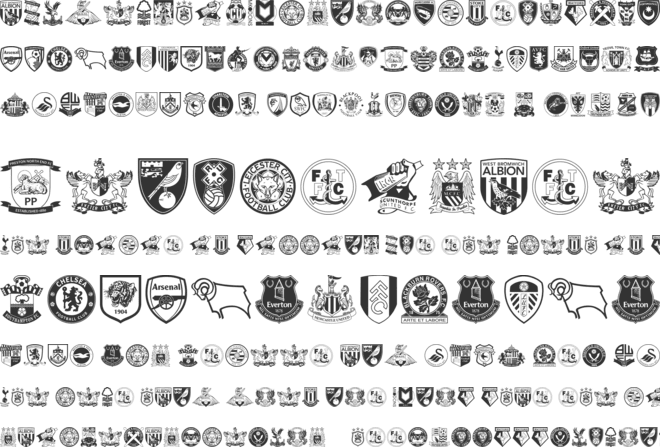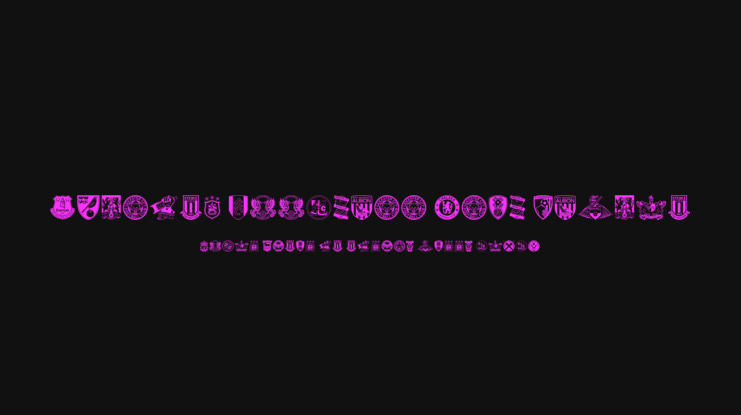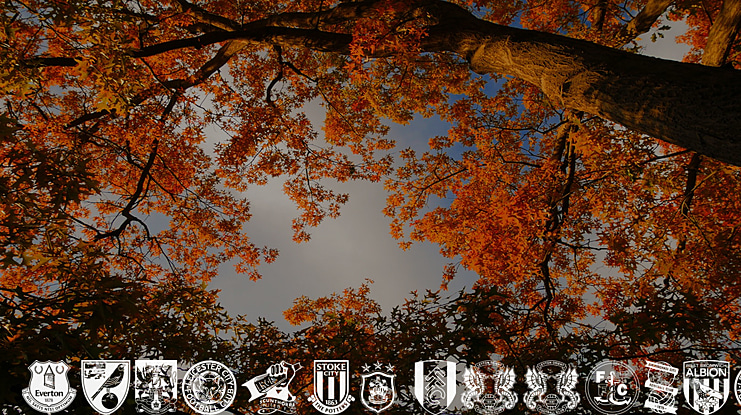
All 92 English Fooball Club badges(season 2015/16).
Premier League
Arsenal = A Aston Villa - V Bournemouth - B Chelsea - C Crystal Palace - c Everton - E Leicester City - l Liverpool - L Manchester City - m Manchester United - M Newcastle United - N Norwich City - n Southampton - S Stoke City - s Sunderland - 0 Swansea City -1 Tottenham Hotspur - T Watford - w West Bromwich Albion - a West Ham United - W
The Championship
Birmingham City - b Blackburn Rovers - R Bolton Wanderers - 2 Brentford - 3 Brighton & Hove Albion - 4 Bristol City - 5 Burnley - 6 Cardiff City - 7 Charlton Athletic - 8 Derby County - D Fulham - F Huddersfield Town - h Hull City - H Ipswich Town - I Leeds United - U Middlesbrough - 9 MK Dons - K Nottingham Forest - f Preston North End - P Queens Park Rangers - Q Reading - r Rotherham United - u Sheffield Wednesday - ! Wolverhampton Wanderers -
League One
Barnsley - # Blackpool - $ Bradford City - % Burton Albion - & Bury - Chesterfield = ( Colchester United = ) Coventry City - * Crewe Alexandra - + Doncaster Rovers - d Fleetwood Town - t Gillingham - G Millwall - , Oldham Athletic - O Peterborough United - P Port Vale - v Rochdale - - Scunthorpe United - i Sheffield United - . Shrewsbury Town - / Southend United - : More... Swindon Town - ; Walsall - < Wigan Athletic - =
League Two
Accrington Stanley - > AFC Wimbledon - ? Barnet - @ Bristol Rovers - J Cambridge United - j Carlisle United - [ Crawley Town - \ Dagenham & Redbridge - x Exeter City - e Hartlepool United - ] Leyton Orient - o Luton Town - ^ Mansfield Town - _ Morecambe - q Newport County - K Northampton Town - g Notts County - { Oxford United - X Plymouth Argyle - Z Portsmouth - z Stevenage - | Wycombe Wanderers - } Yeovil Town - Y York City - y